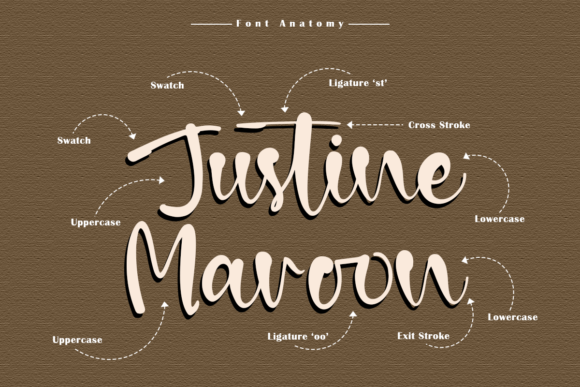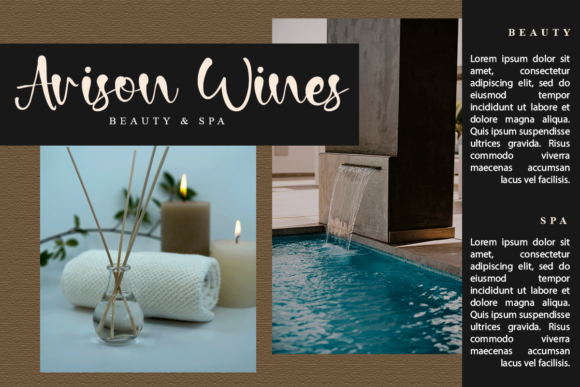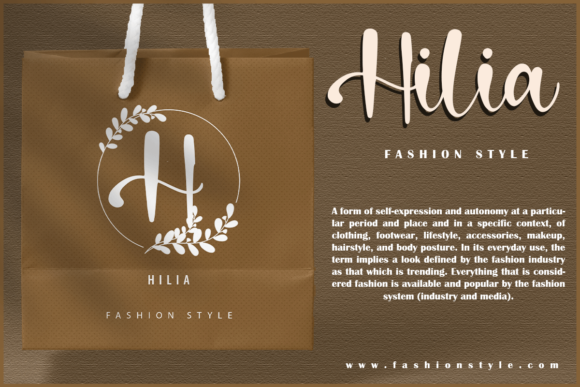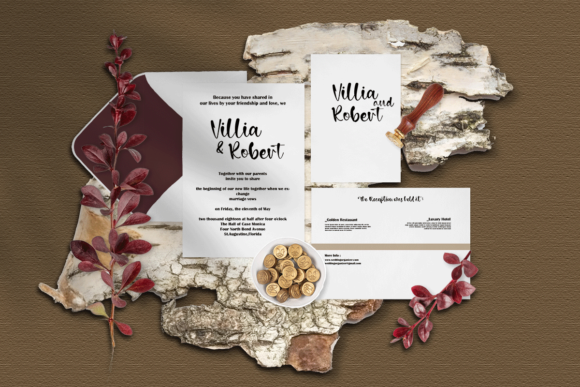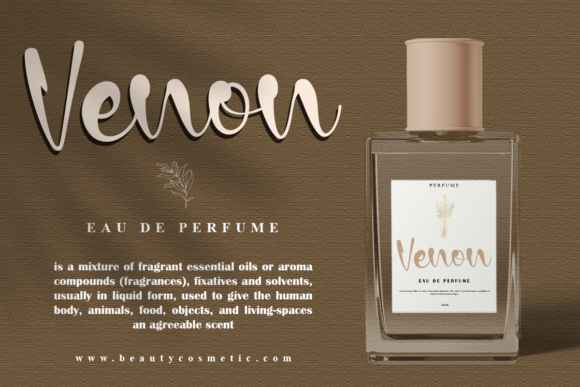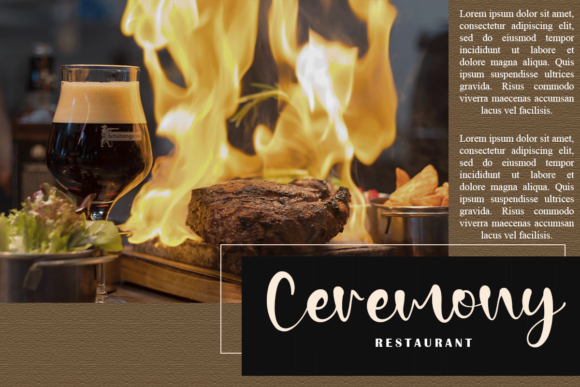
Introduction to Fredricks Font
As I sat at my desk, surrounded by scraps of paper and forgotten ideas, I stumbled upon a blank card and a pen. It was the perfect moment to unleash my creativity and let my imagination run wild. I began to write, and with each stroke of the pen, the words came alive. The Fredricks Font is a beautiful and stylish script font that brings a touch of elegance to any design. Whether it’s a wedding invitation, a thank you card, or a logo, this font adds a personal and handwritten feel that’s hard to resist.
For designers, the Fredricks Font is a valuable resource that can elevate any creative project. Its PUA encoded feature allows for seamless access to all glyphs and swashes, making it a breeze to customize and perfect your design. With its high-quality design and transparent background, this font is a must-have for any design enthusiast. And the best part? It’s available for free download, making it an accessible resource for designers of all levels.
- Unique, Hand-Drawn Design: Fredricks Font offers a distinctive, hand-drawn aesthetic that adds a touch of creativity to any project.
- Perfect for Creative Projects: With its unique, hand-drawn style and transparent background, Fredricks Font is an excellent choice for designers working on creative projects, such as posters, flyers, and business cards.
As a designer, I’m always on the lookout for high-quality design resources to elevate my creative projects. Recently, I had the chance to work with the Fredricks Font, and I must say, it’s a great addition to any design arsenal.
One of the standout features of Fredricks Font is its versatility. The font is perfect for a variety of projects, from web design to print materials. The font’s clean and modern design makes it a great choice for any creative project.
- ✨ High-quality design: Fredricks Font is a well-designed font that looks great in various sizes and styles.
- ⚠️ Limited font styles: While the font is clean and modern, it’s limited in terms of font styles, which may not be suitable for all design projects.
- ⚠️ Not ideal for bold headings: The font is best suited for body text, and may not be the best choice for bold headings or titles.
Overall, I’m impressed with the Fredricks Font. While it may have some limitations, its high-quality design and versatility make it a great addition to any design resource library.
Fredricks Font is suitable for various creative projects, including logos, brochures, business cards, and social media graphics. It’s also a great option for designing presentations, reports, and other business documents that require a professional and elegant look.